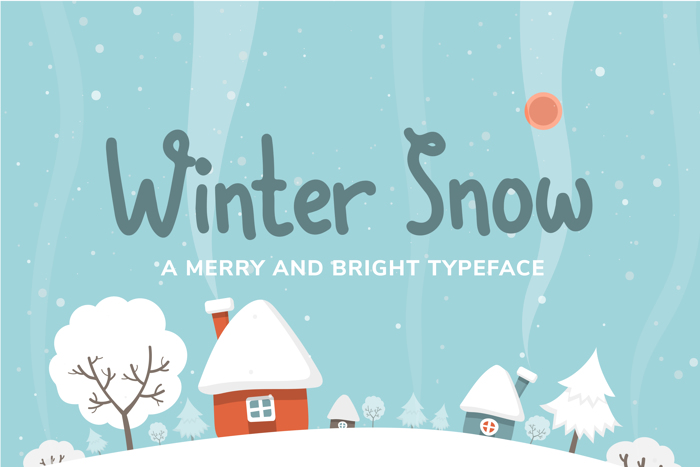
Winter Snow Font
Introducing Winter Snow Typeface. It is designed by wyarecreatype. Winter Snow is the New Year’s font. Inspired by the holiday mood and created for your future wonderful works. Well suited for headlines, short texts, postcards, calendars, magazines, books, and logos. Enjoy! 🙂